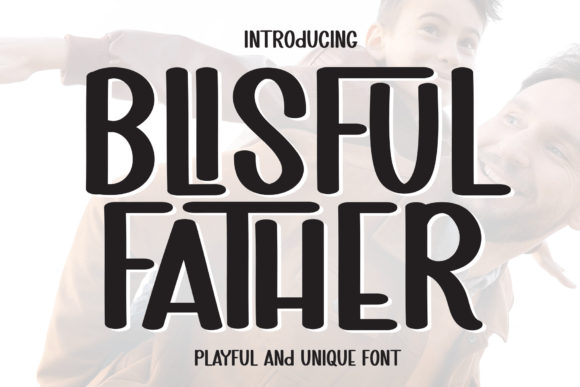
Introducing Blisful Father Font: The Friendly Sans-Serif for Your Creative Projects
In the world of typography, fonts play a crucial role in conveying the tone and personality of a brand or creative project. When it comes to selecting the perfect font, designers and creatives often find themselves spoiled for choice. However, if you’re looking for a friendly sans-serif font that effortlessly combines approachability with clarity, look no further than Blisful Father. In this article, we’ll dive into the world of Blisful Father, exploring its unique characteristics, features, and uses.
What is Blisful Father Font?
Blisful Father is a friendly sans-serif font designed to add a warm and inviting touch to your creative projects. Its balanced letterforms and subtle curves create a welcoming and versatile aesthetic that’s perfect for a wide range of applications. Whether you’re working on a branding project, website design, or marketing materials, Blisful Father is an excellent choice for those seeking a modern and approachable font.
Key Features of Blisful Father Font
- Approachable and Clear: Blisful Father’s design prioritizes clarity and approachability, making it easy to read and understand.
- Balanced Letterforms: The font features balanced letterforms that create a sense of harmony and stability.
- Subtle Curves: Blisful Father’s subtle curves add a touch of warmth and friendliness to the font.
- Versatile Aesthetic: The font’s versatile aesthetic makes it suitable for a wide range of creative projects.
- Modern Flair: Blisful Father adds a friendly, modern flair to your creative endeavors.
Who is Blisful Father Font Suitable For?
Blisful Father font is perfect for creatives, designers, and brands seeking a friendly and approachable sans-serif font. It’s ideal for:
- Branding and Identity: Use Blisful Father to create a warm and inviting brand identity.
- Web Design: The font’s clarity and readability make it perfect for website design.
- Marketing Materials: Add a friendly touch to your marketing materials, such as brochures, flyers, and posters.
- Packaging Design: Use Blisful Father to create eye-catching and approachable packaging designs.
Benefits of Using Blisful Father Font
By choosing Blisful Father font, you can enjoy several benefits, including:
- Improved Readability: The font’s clarity and approachability ensure that your message is conveyed effectively.
- Enhanced Brand Identity: Blisful Father helps create a warm and inviting brand identity that resonates with your audience.
- Versatility: The font’s versatility makes it suitable for a wide range of creative projects.
- Modern Aesthetic: Blisful Father adds a friendly, modern flair to your creative endeavors.
Tips for Using Blisful Father Font Effectively
To get the most out of Blisful Father font, consider the following tips:
- Pair with Other Fonts: Experiment with pairing Blisful Father with other fonts to create a unique visual identity.
- Use in Headings and Body Text: Use Blisful Father in headings and body text to create a cohesive look.
- Adjust Font Sizes: Adjust font sizes to create visual hierarchy and emphasize important information.
- Experiment with Colors: Try out different colors to find the perfect match for your brand or creative project.
In conclusion, Blisful Father font is an excellent choice for creatives and designers seeking a friendly sans-serif font that effortlessly combines approachability with clarity. Its balanced letterforms, subtle curves, and versatile aesthetic make it perfect for a wide range of creative projects. By choosing Blisful Father, you can add a warm and inviting touch to your brand or creative project, ensuring that your message is conveyed effectively and in style.
Frequently Asked Questions (FAQs)
- What type of font is Blisful Father? Blisful Father is a friendly sans-serif font.
- What is Blisful Father font suitable for? Blisful Father font is perfect for creatives, designers, and brands seeking a friendly and approachable sans-serif font.